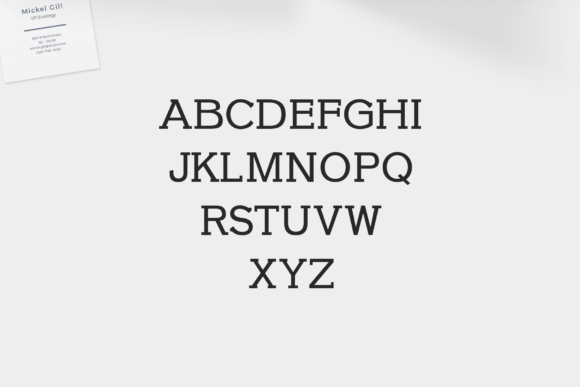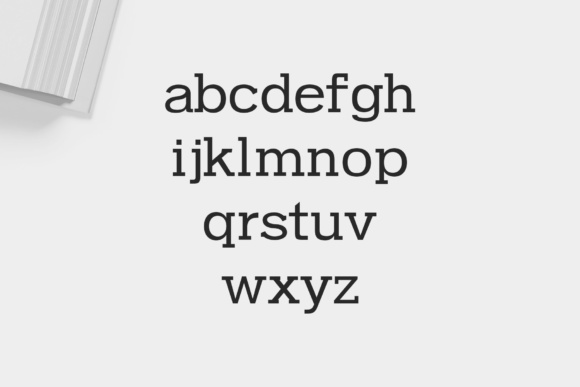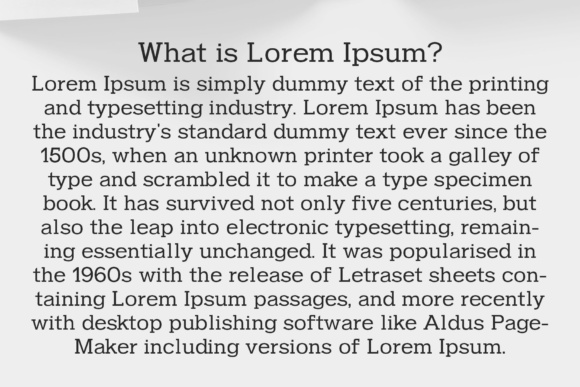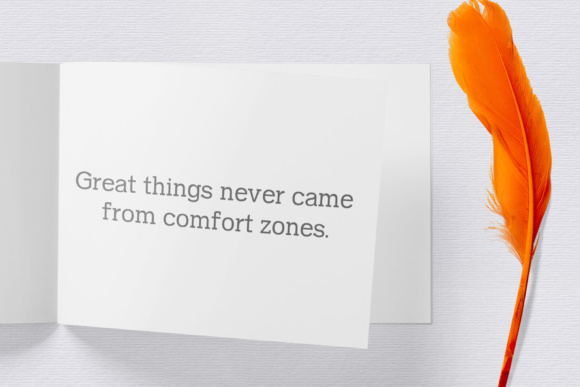
Introducing Farhan Font: A Unique and Versatile Slab Serif Typeface
In the world of typography, a good font can make all the difference in the success of a design project. For designers and crafters looking for a unique and strong slab serif typeface, Farhan Font is an excellent choice. With its 5 weights and italics, Farhan Font is well-suited for a wide range of applications, from editorial projects to logotypes, posters, clean designs, logos, headlines, banners, and templates.
What Makes Farhan Font Stand Out?
Farhan Font is a distinctive slab serif typeface that boasts a robust and modern aesthetic. Its unique character set and versatile weight options make it an ideal choice for designers seeking to add a touch of sophistication and elegance to their work. Whether you’re working on a editorial project, creating a logo, or designing a poster, Farhan Font is sure to make a lasting impression.
Key Features of Farhan Font
- 5 Weights: Farhan Font offers 5 weights, allowing designers to choose the perfect weight to suit their design needs.
- Italics: In addition to the 5 weights, Farhan Font also includes italics, providing designers with even more flexibility.
- Slab Serif: Farhan Font’s slab serif design gives it a distinctive and modern look that’s perfect for a wide range of applications.
- Clean and Versatile: Farhan Font’s clean design makes it easy to read and versatile enough to use in a variety of contexts.
Use Cases for Farhan Font
Farhan Font’s versatility makes it suitable for a wide range of design projects, including:
- Editorial Projects: Farhan Font is perfect for use in editorial projects, such as magazines, newspapers, and books.
- Logotypes: Farhan Font’s unique character set makes it an excellent choice for logotypes and branding projects.
- Posters: Farhan Font’s bold and eye-catching design makes it ideal for posters and other large-format designs.
- Clean Designs: Farhan Font’s clean design makes it perfect for use in clean and minimalist designs.
- Logos: Farhan Font’s versatility and unique character set make it an excellent choice for logos and branding projects.
- Headlines: Farhan Font’s bold and attention-grabbing design makes it perfect for use in headlines and titles.
- Banners: Farhan Font’s clean design and versatility make it suitable for use in banners and other digital designs.
- Templates: Farhan Font’s versatility and unique character set make it an excellent choice for use in templates and other design projects.
Why Choose Farhan Font?
With so many fonts available, why choose Farhan Font? Here are just a few reasons:
- Unique Design: Farhan Font’s unique slab serif design sets it apart from other fonts.
- Versatility: Farhan Font’s 5 weights and italics make it versatile enough to use in a wide range of design projects.
- Clean and Legible: Farhan Font’s clean design makes it easy to read and understand.
- High-Quality: Farhan Font is a high-quality font that’s perfect for professional design projects.
In conclusion, Farhan Font is a unique and versatile slab serif typeface that’s perfect for designers and crafters looking for a strong and modern font. With its 5 weights, italics, and clean design, Farhan Font is well-suited for a wide range of design projects, from editorial projects to logotypes, posters, clean designs, logos, headlines, banners, and templates. Whether you’re a professional designer or a crafty DIY enthusiast, Farhan Font is an excellent choice for any design project.